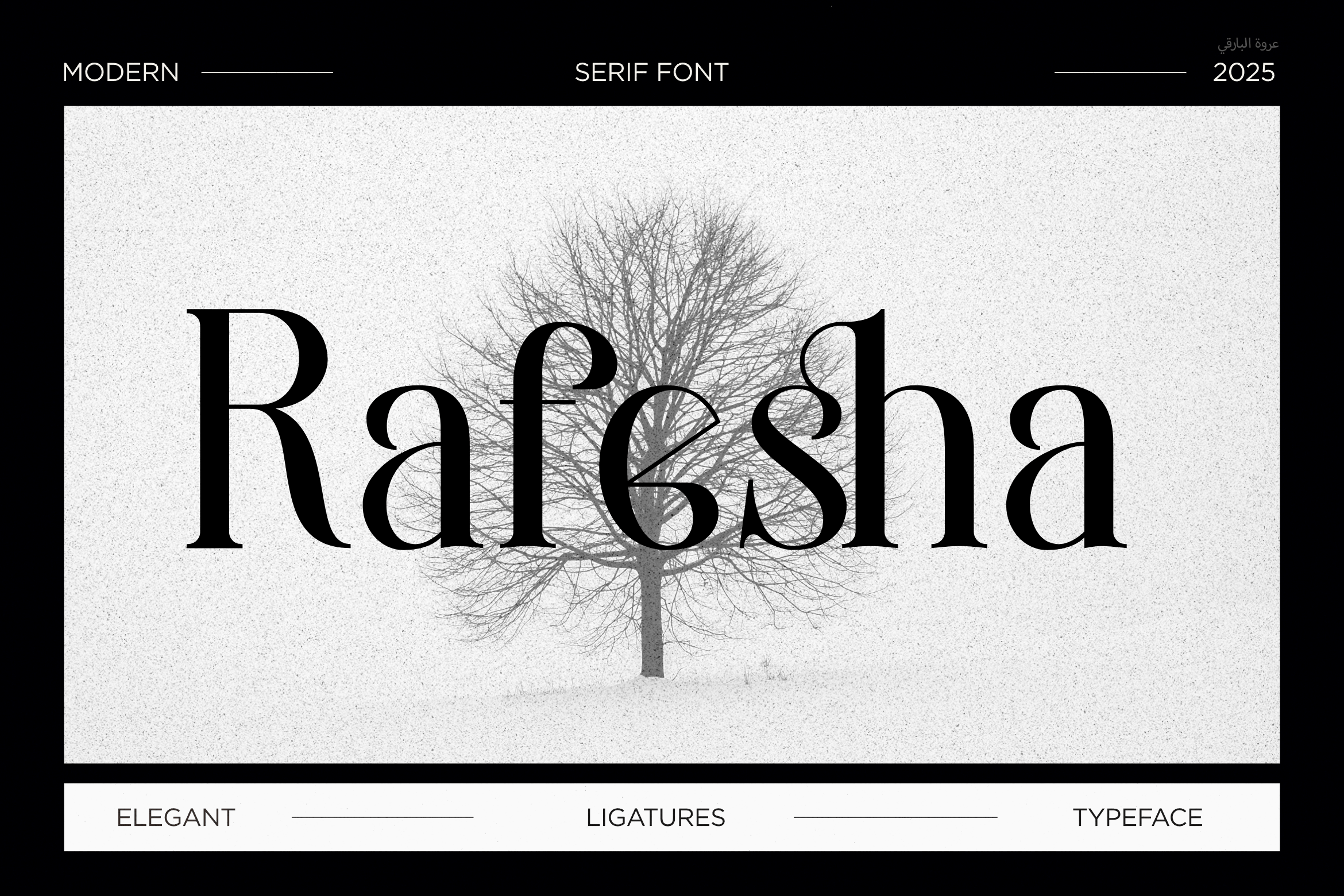
- Rafesha Elegant Modern Serif Font
Rafesha is an elegant modern serif font made for bold, refined, and memorable design. It blends strong serif shapes with high contrast, sharp details, and smooth curves. As a result, Rafesha feels both classic and fresh, making it a strong choice for brands that want a clean yet stylish voice.
This luxury serif font is designed to stand out in large text. Its tall letterforms create a clear visual rhythm, while the fine hairlines add a delicate touch. At the same time, the heavier strokes give headlines enough strength for posters, covers, and brand work. Therefore, Rafesha can bring a polished look to both simple and bold layouts.
Rafesha also includes a wide range of ligatures and alternate characters. These extra forms let you change key letters and build a more unique result. In addition, the special letter combinations can add flow and detail to logos, titles, and short phrases.
Key Features
- Elegant high contrast serif style
- Modern and refined letterforms
- Stylish ligatures for creative type
- Alternate characters for added variety
- Uppercase and lowercase letters
- Numbers and punctuation
- Strong display style for large text
- Great choice for logo and brand design
Rafesha works especially well for fashion branding, luxury logos, magazine covers, beauty campaigns, editorial layouts, and premium packaging. Likewise, it fits wedding stationery, perfume labels, posters, social media graphics, and lifestyle projects. Because of its strong contrast, it looks especially effective when used as a headline or main visual element.
For a clean result, pair Rafesha with a simple sans serif font for body text. Meanwhile, you can use the ligatures and alternates to give important words more character. With generous spacing, its thin lines become even more noticeable. Thus, the font can shift from classic and elegant to bold and modern with only a few layout changes. It is easy to adapt.
Overall, Rafesha is a versatile serif typeface for designers who want elegance without losing impact. It brings together luxury, clarity, and creative detail, so it can help a brand, poster, magazine, or product feel more polished and distinctive.